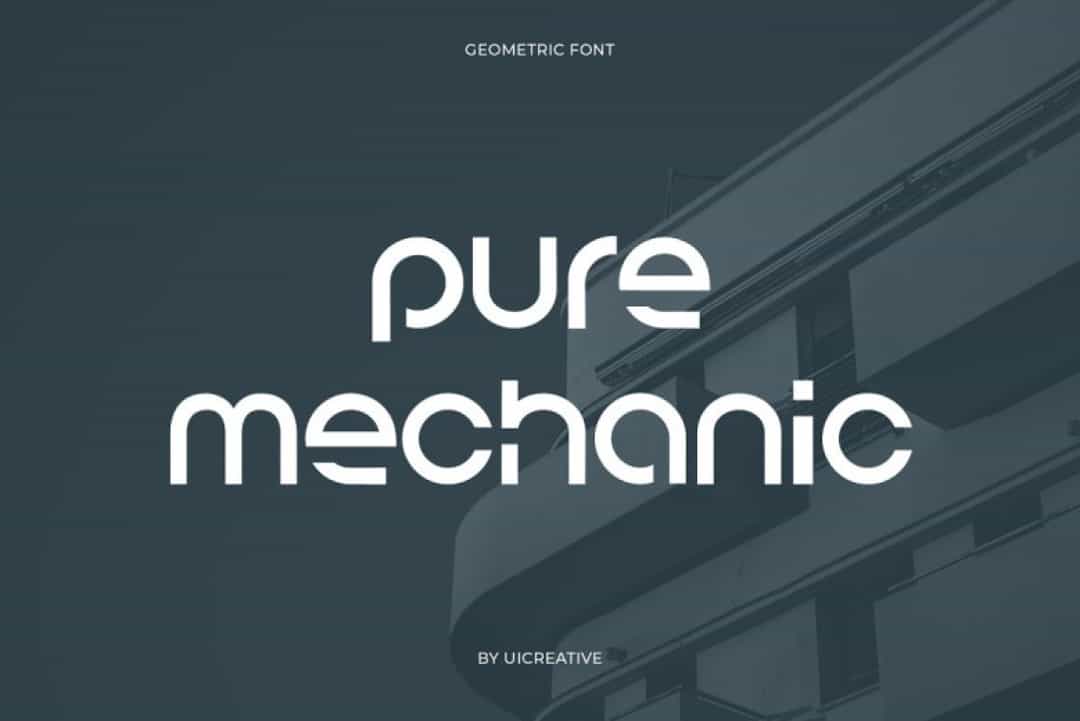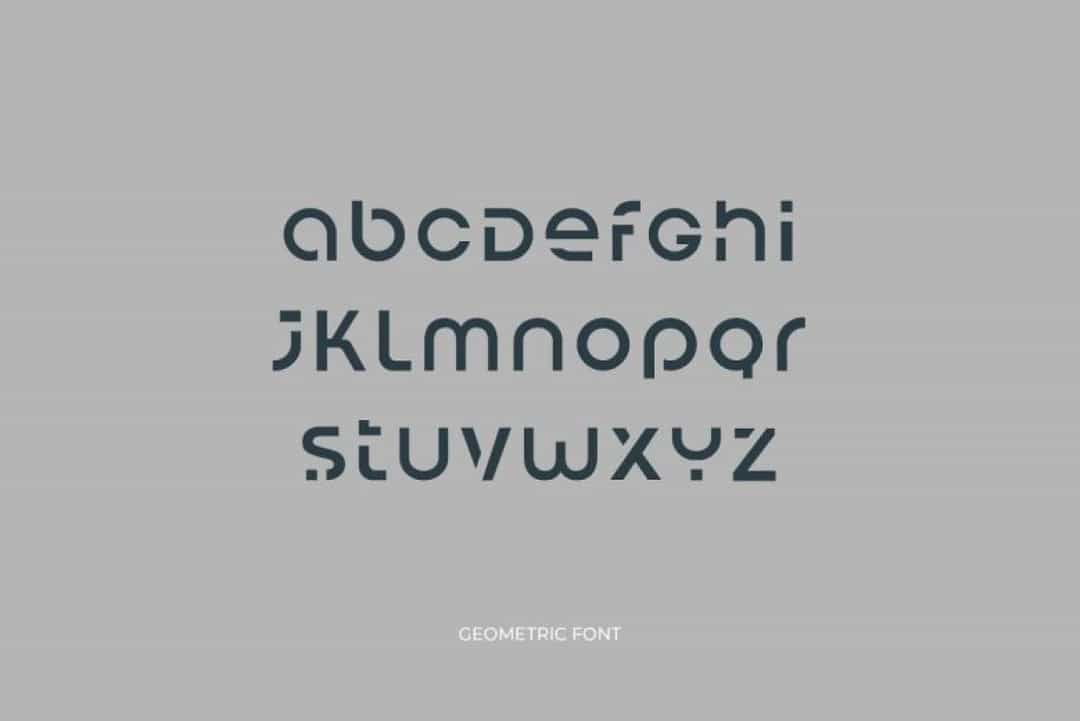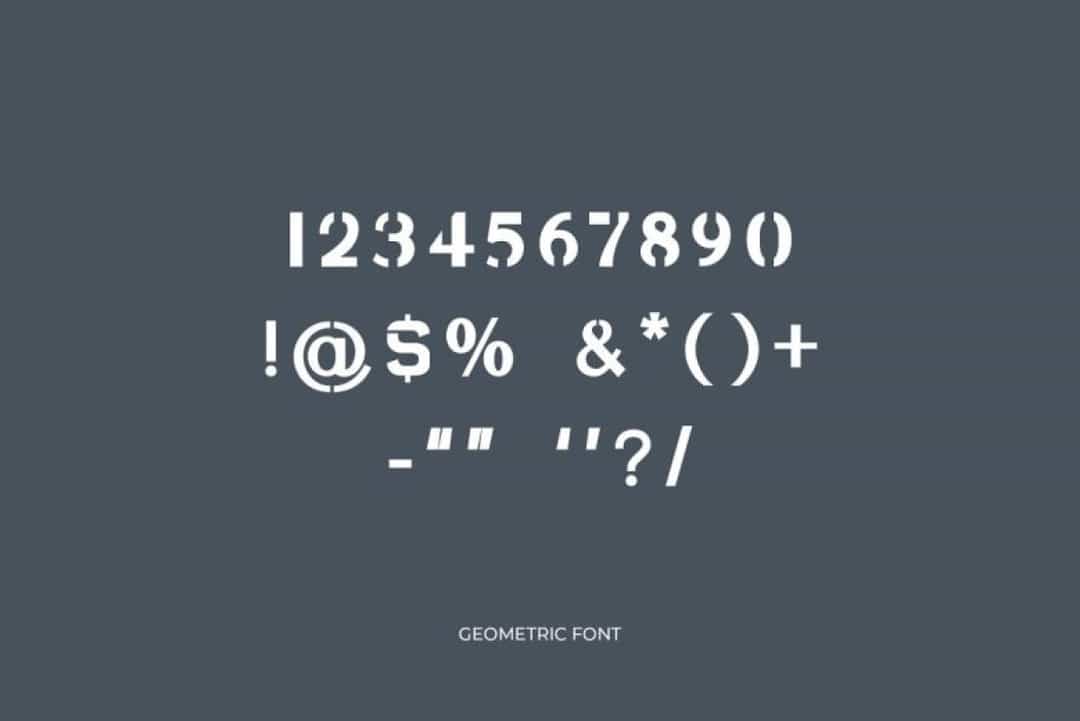
Pure Mechanic is a contemporary and futuristic sans serif font which exudes elegance, modernity and class. Perfect for many designs such as logos, signature stationery wedding stationery, typography quotes book or magazine covers headers websites branding clothing packaging branding etc…